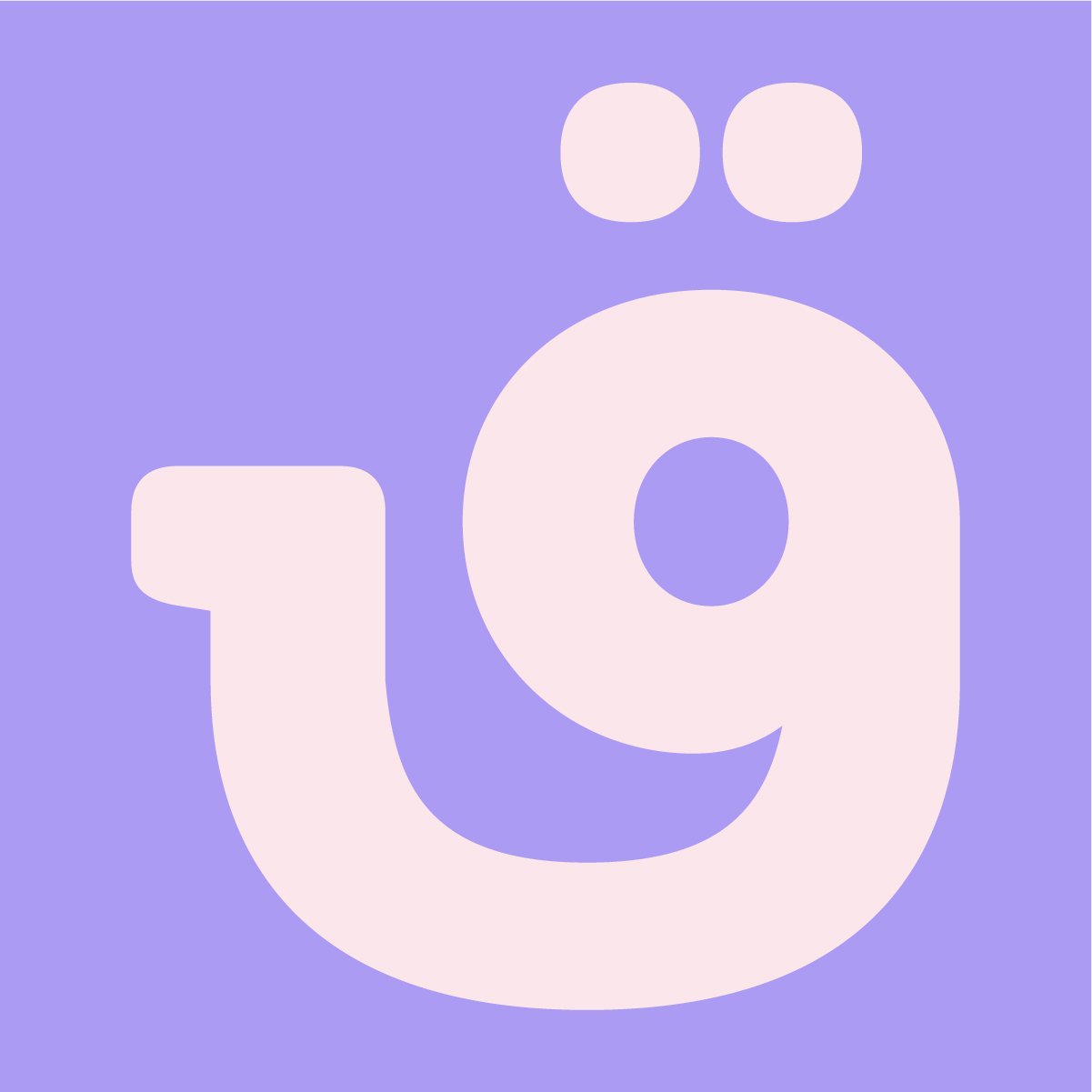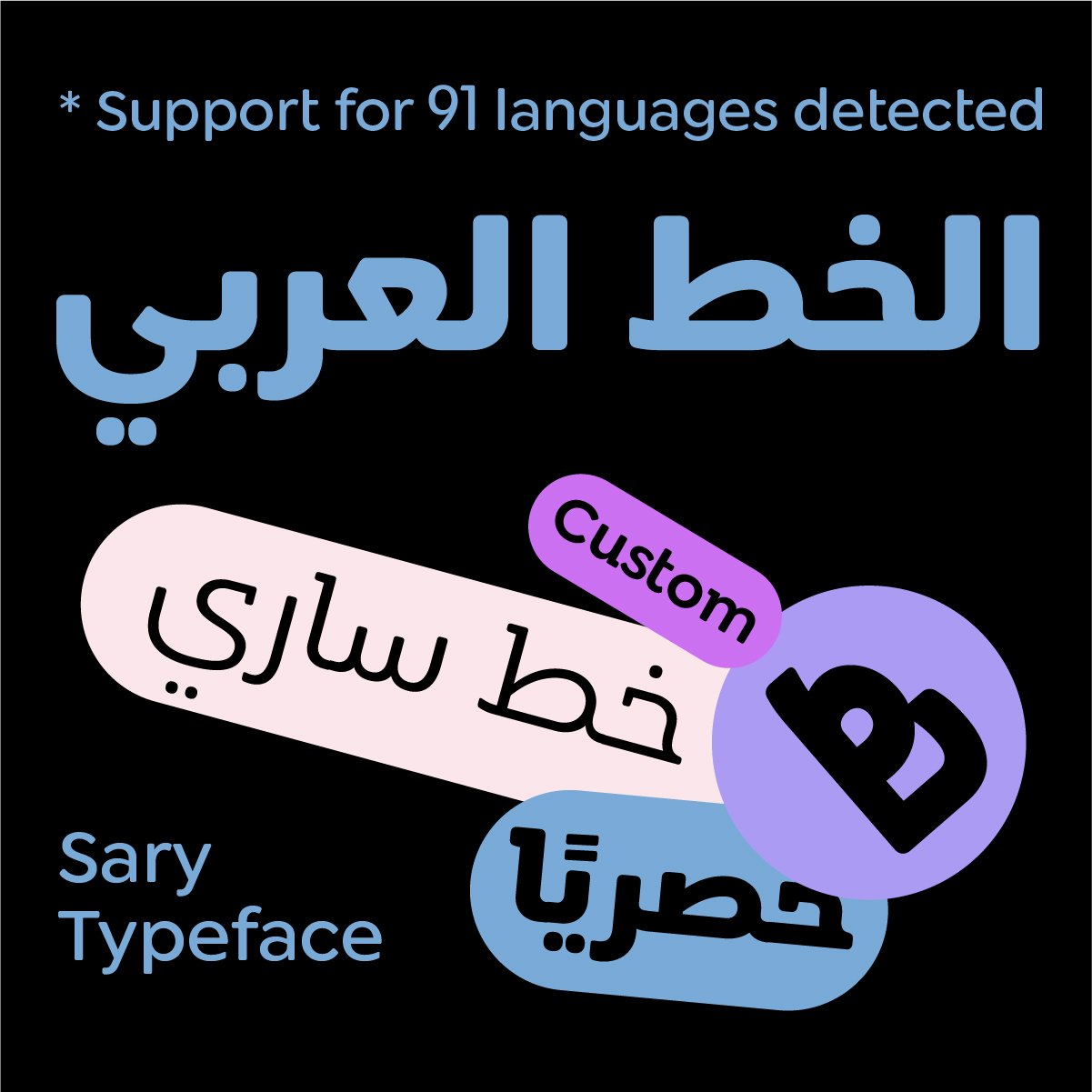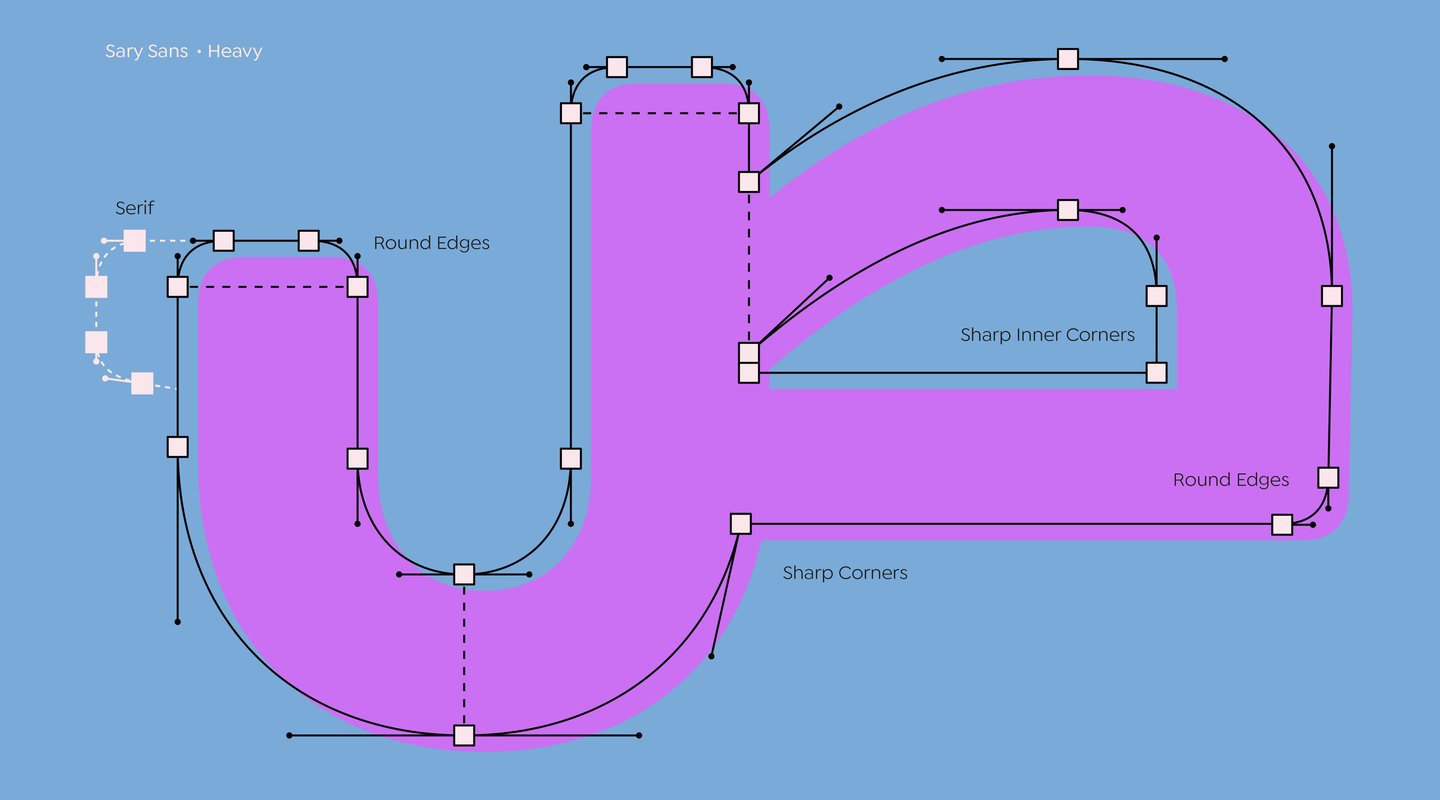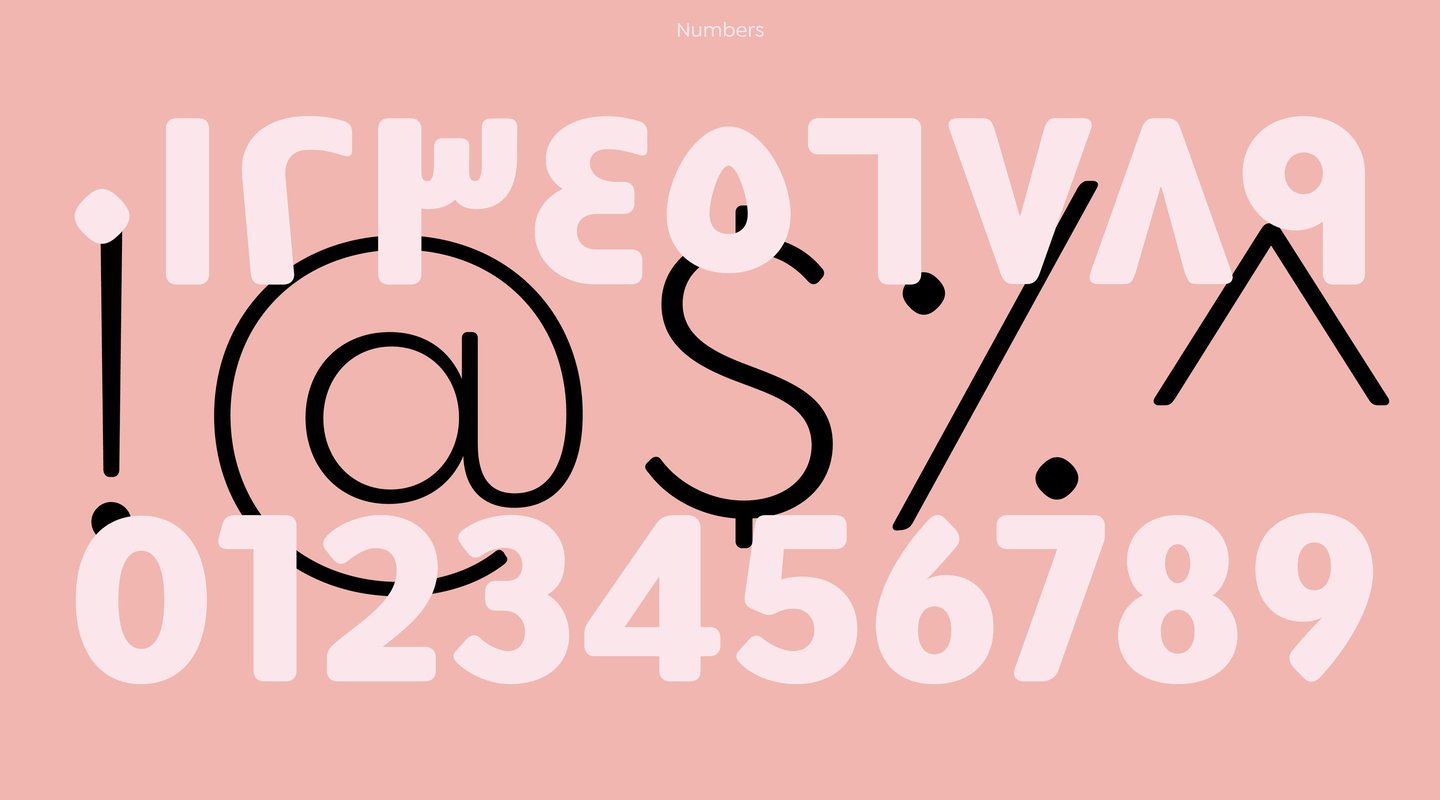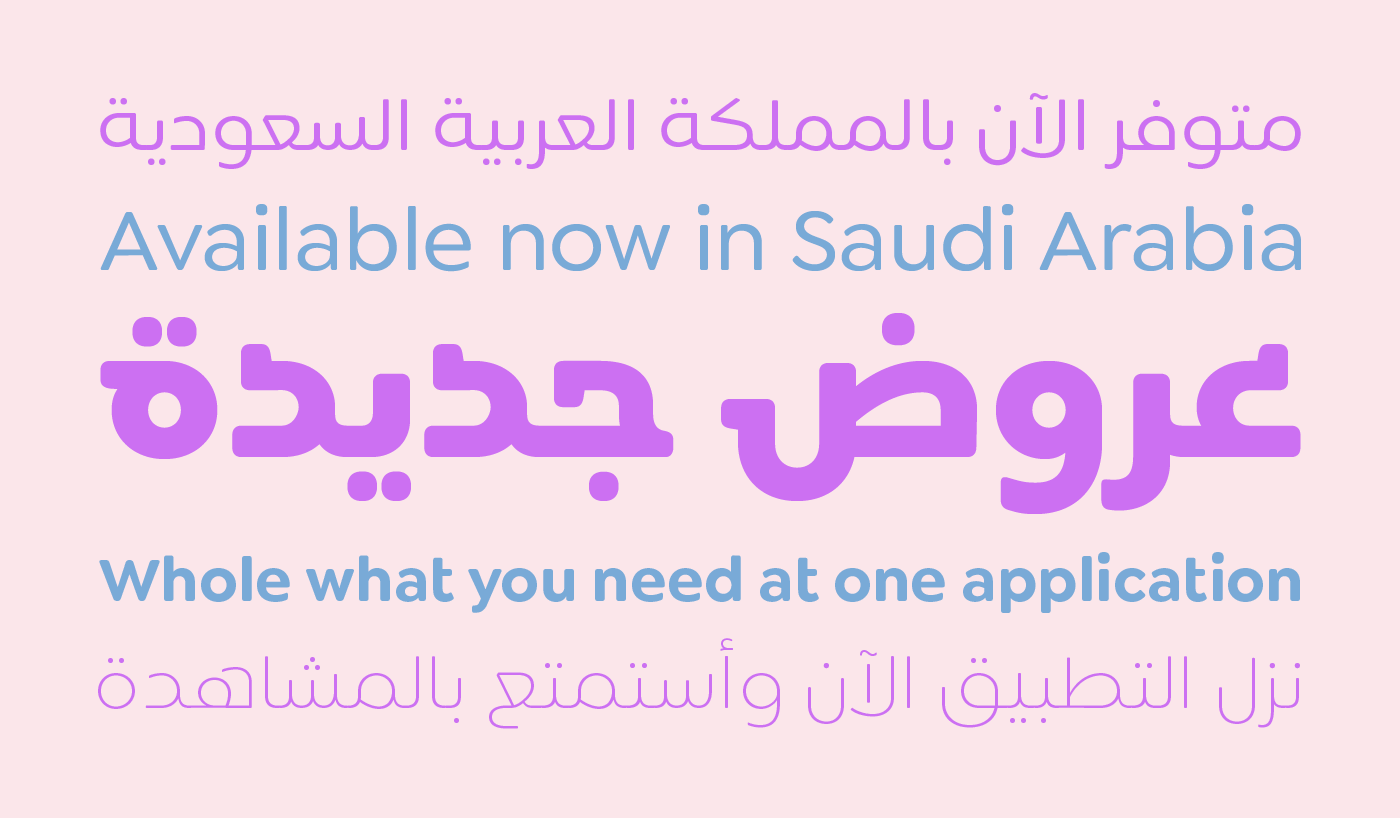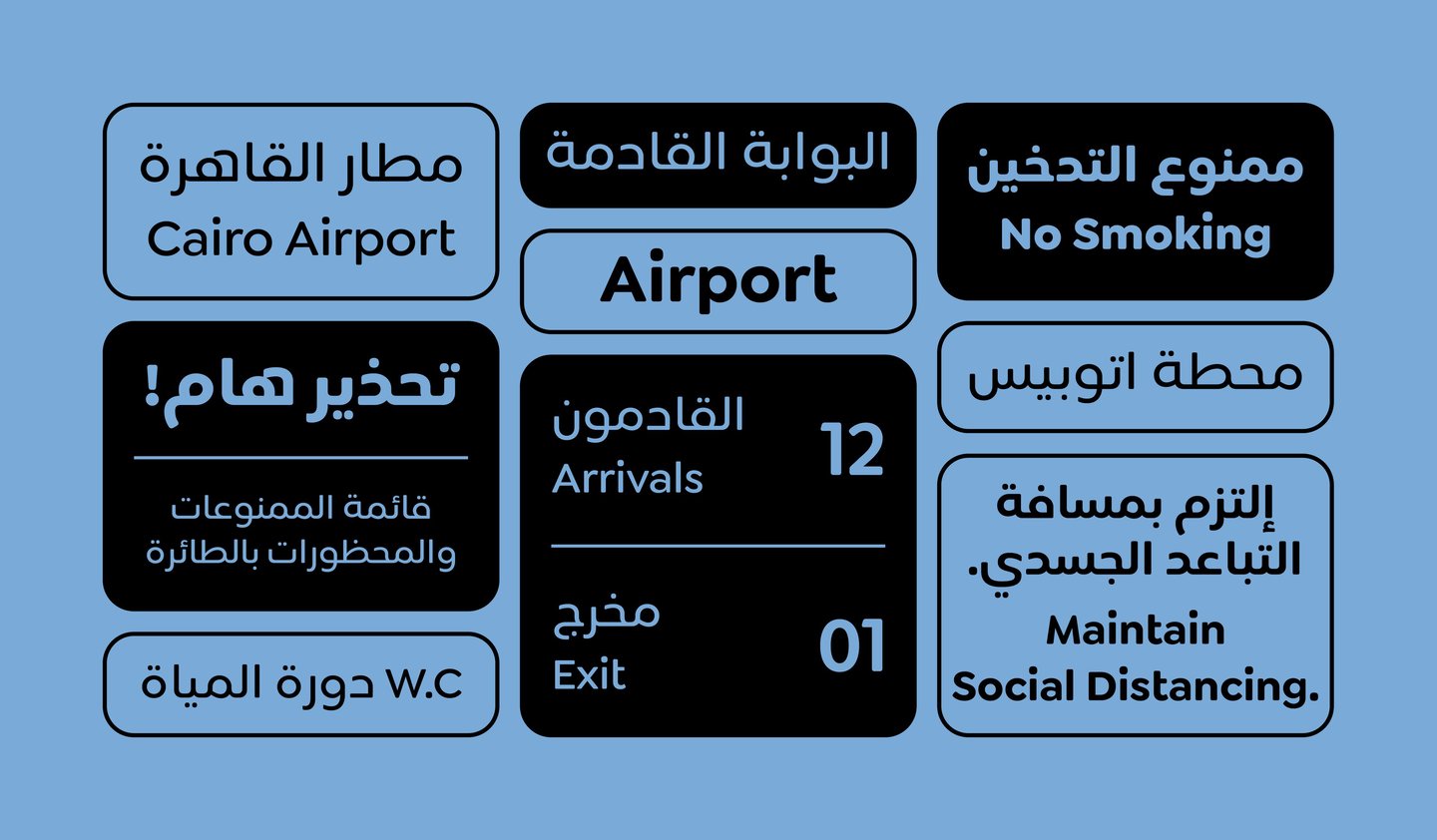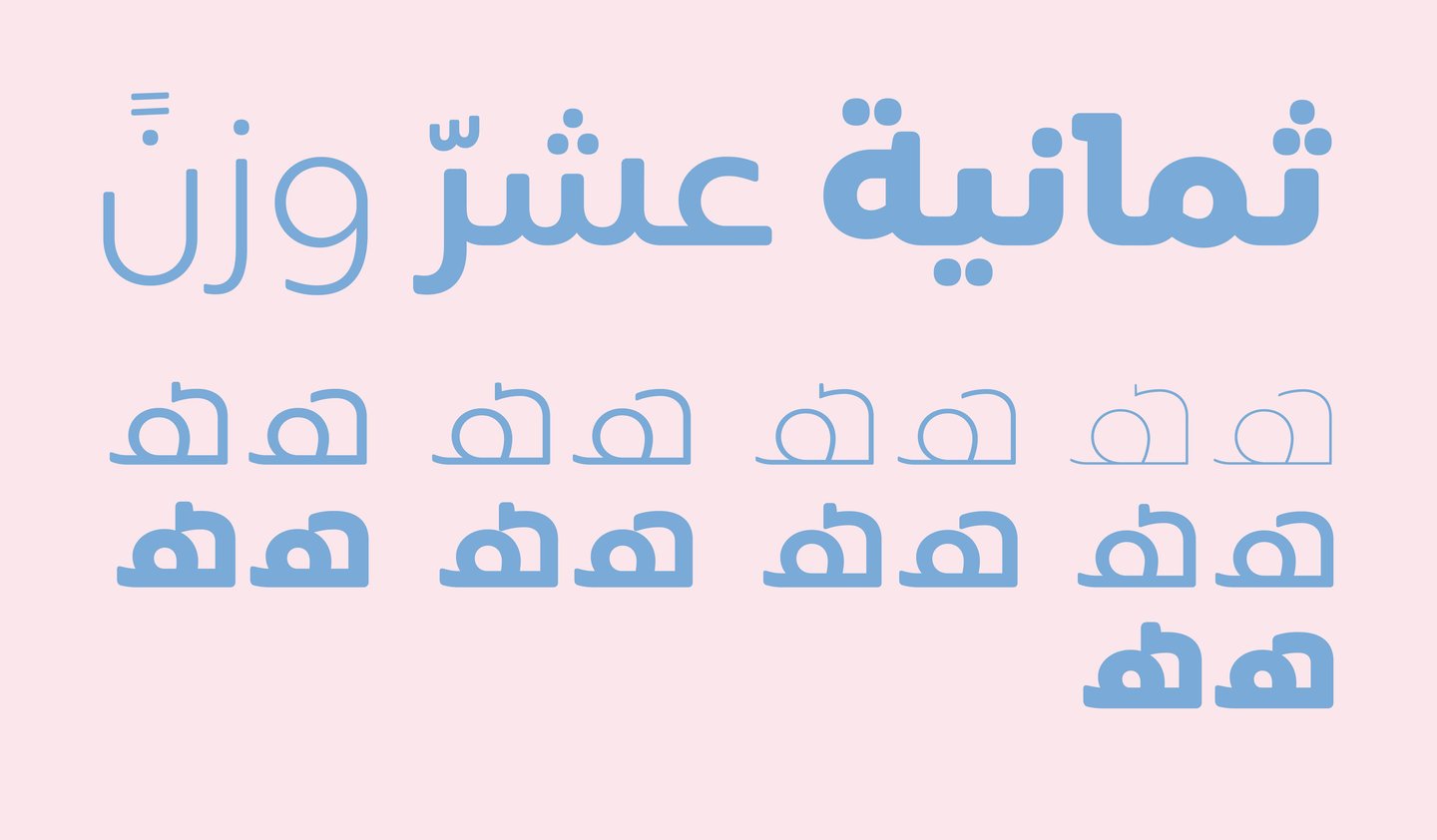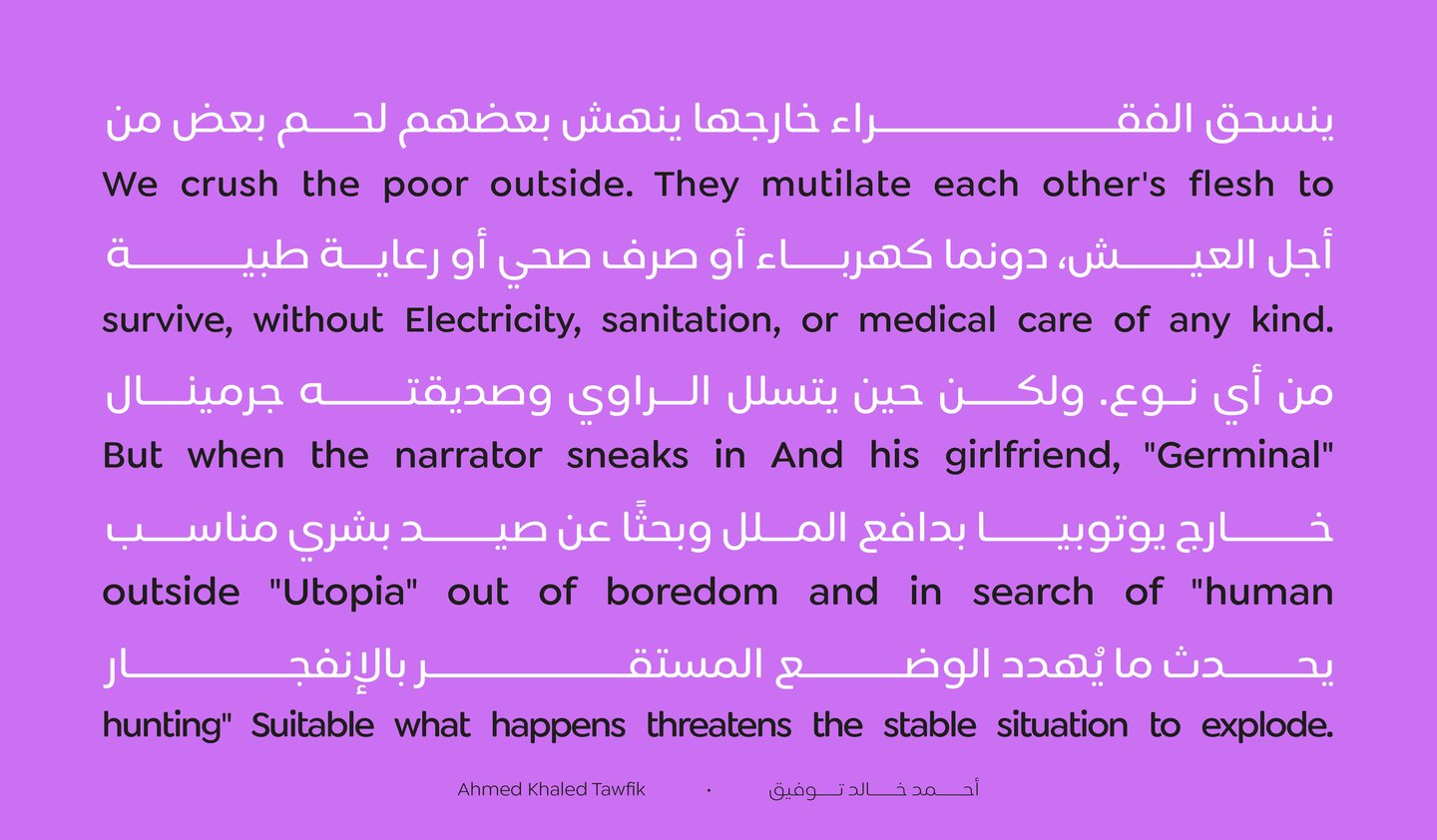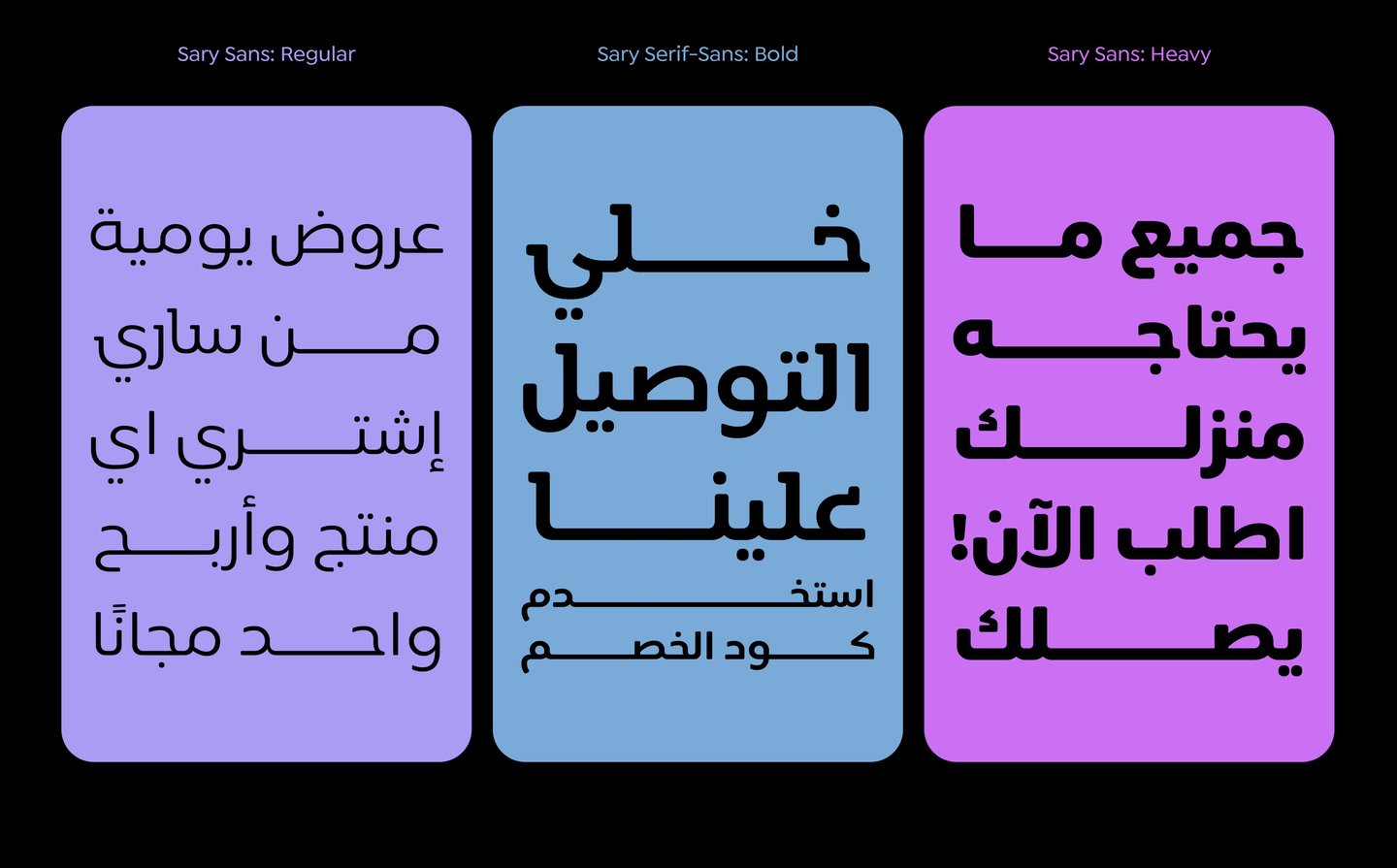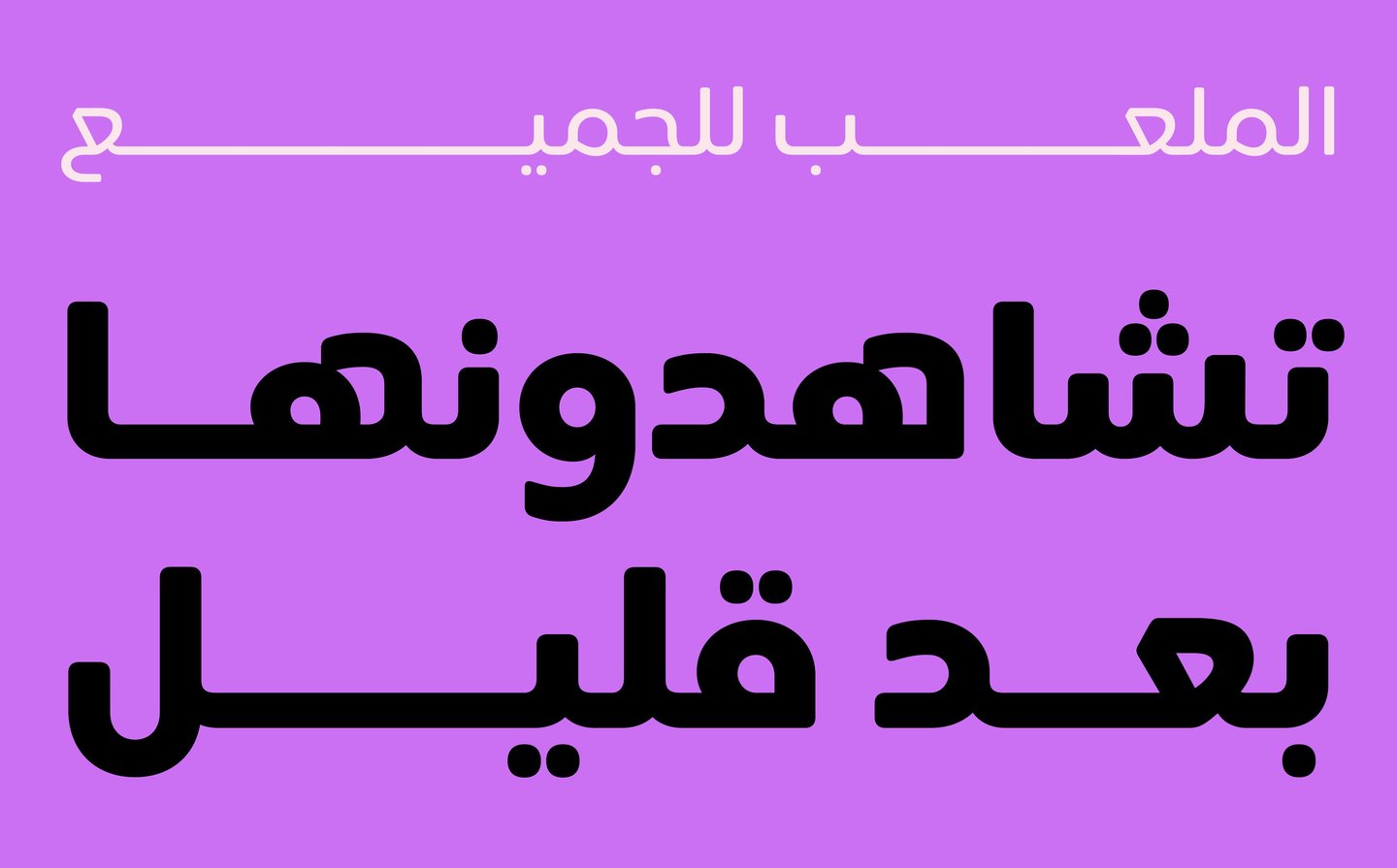
We designed two typefaces (Sans and Serif) for Sary App. it customized for Sary App.The Sary Sans for text and The Sary Serif for headlines. Sary typefaces are designed to translated the brand identity.Sary typefaces supports Arabic and Latin, and Siwa font supports more than 90 languages as well as Arabic, Hindi, Urdu and Farsi numbers.
A custom typeface for sary app, inspired by the brand identity, the font improved the app user experience
The Sary typefaces are Designed by IBRAHIM HAMDI, ABDO MOHAMED in 2019.